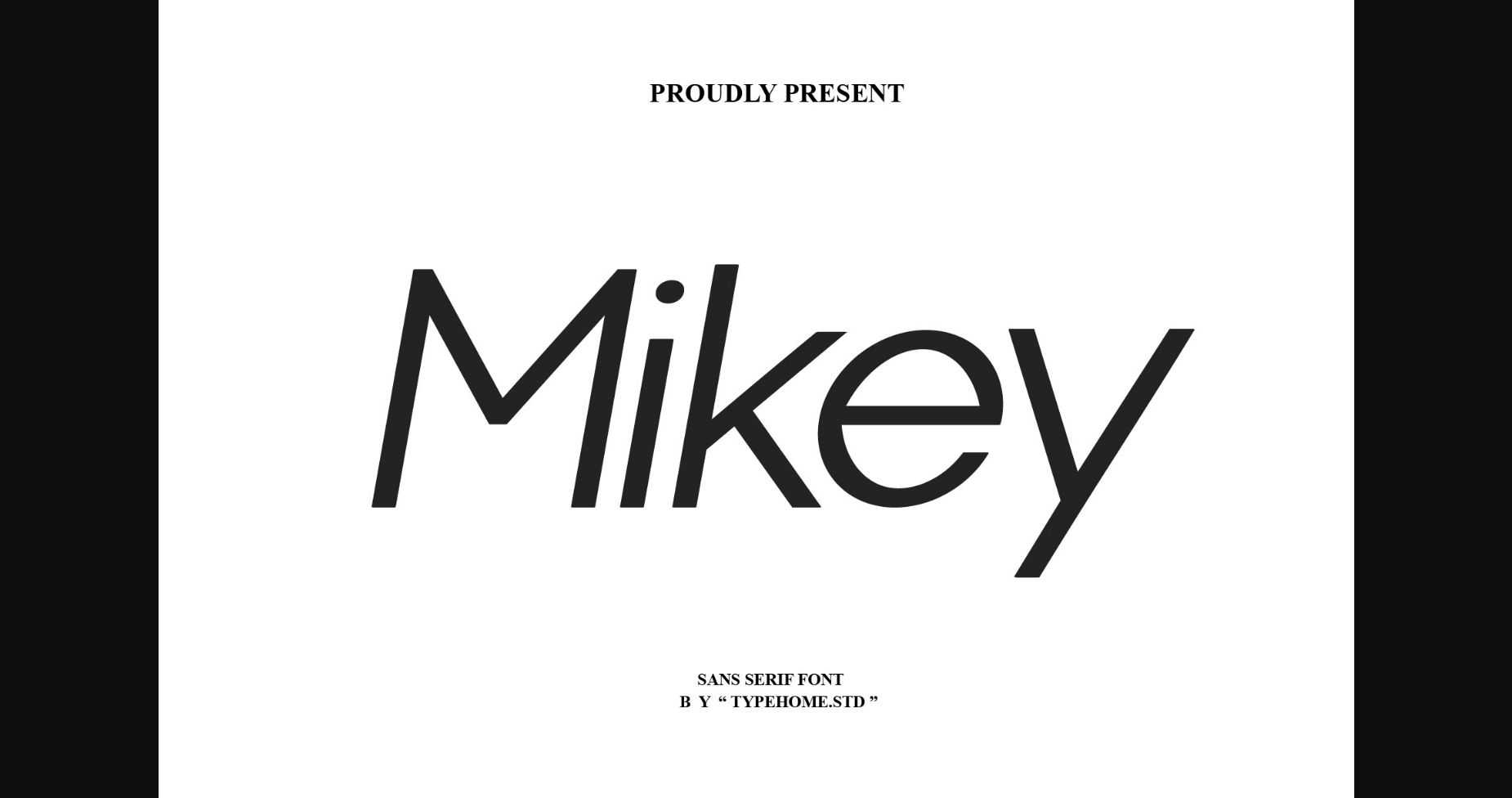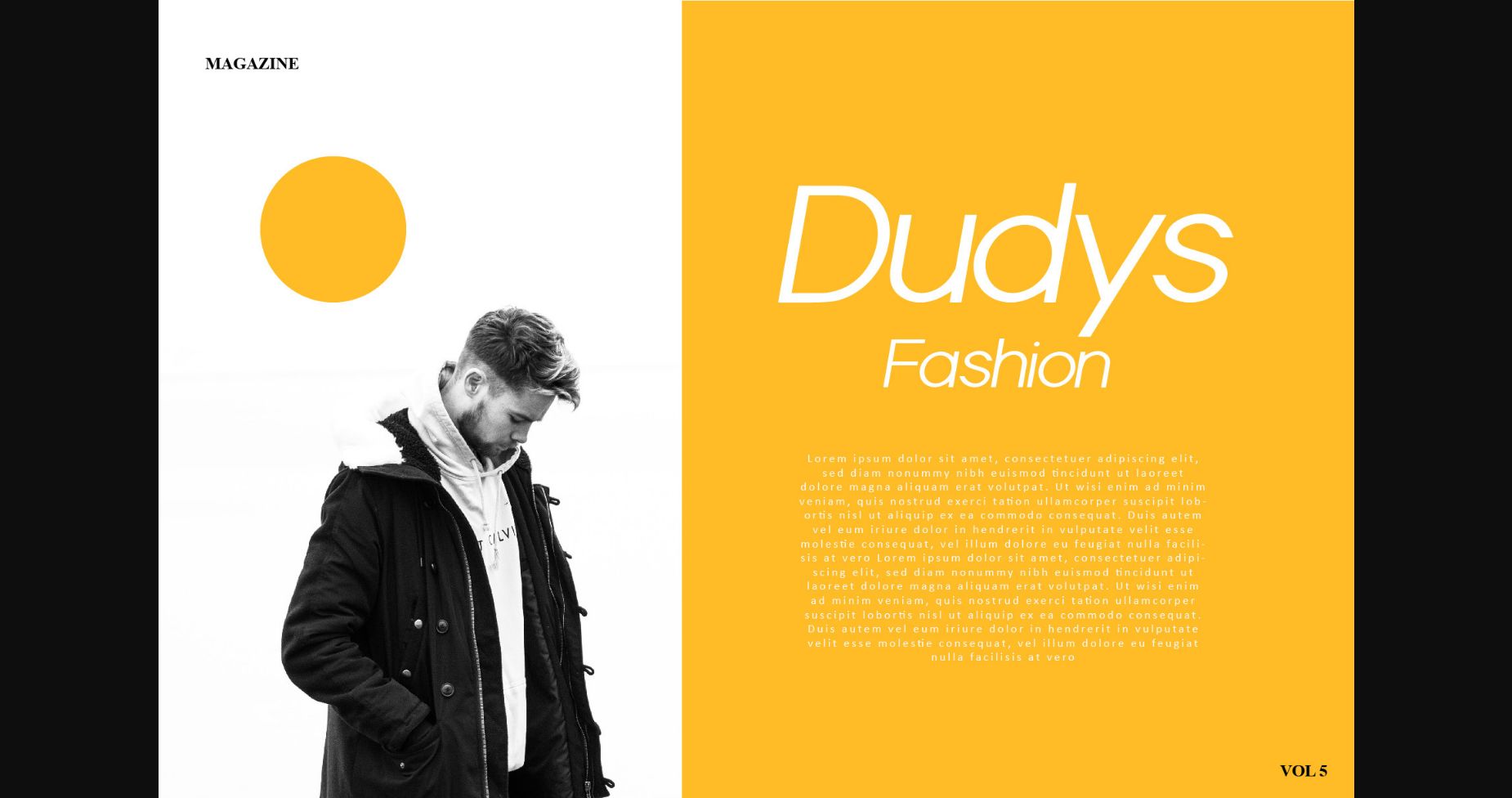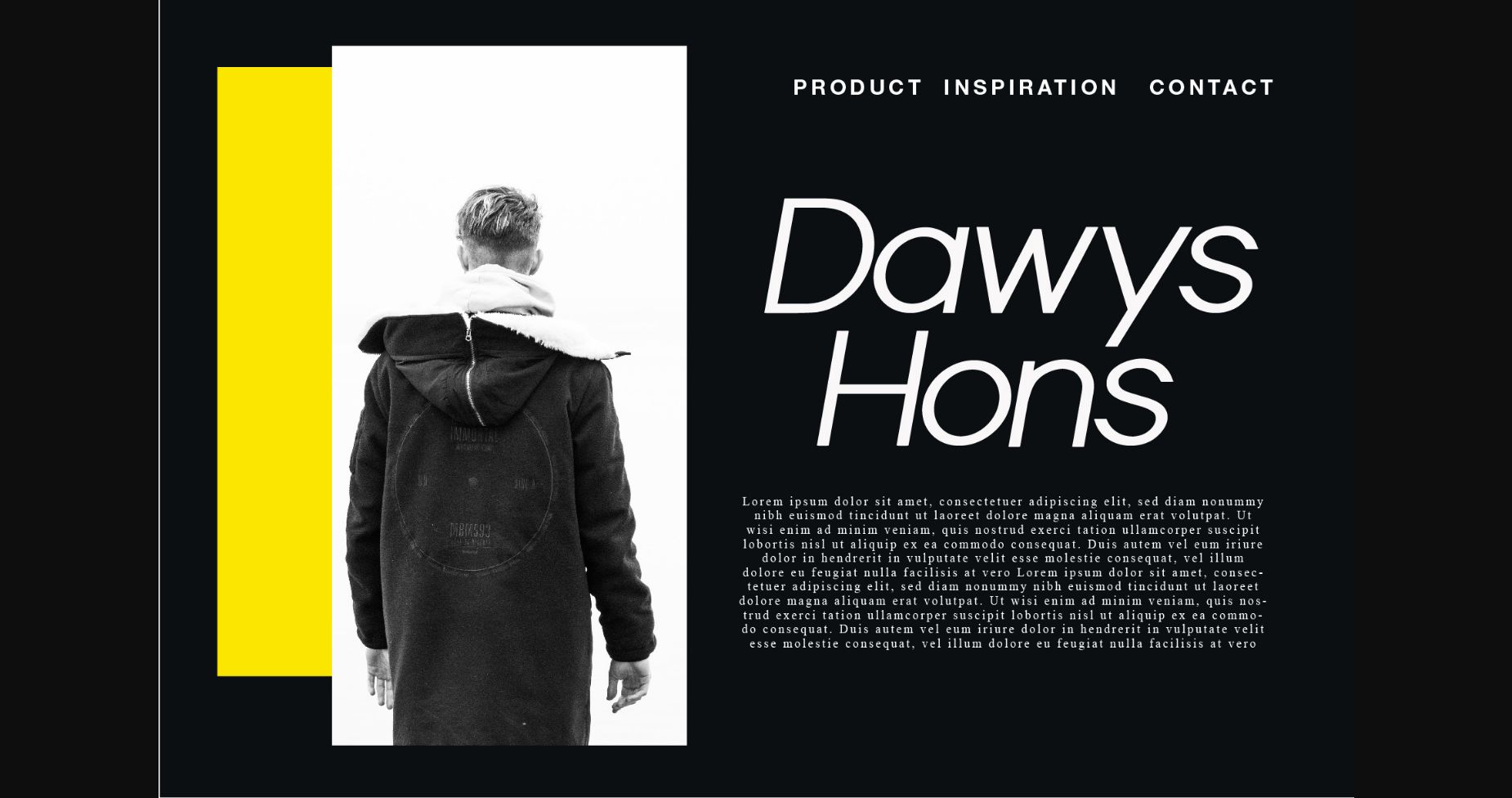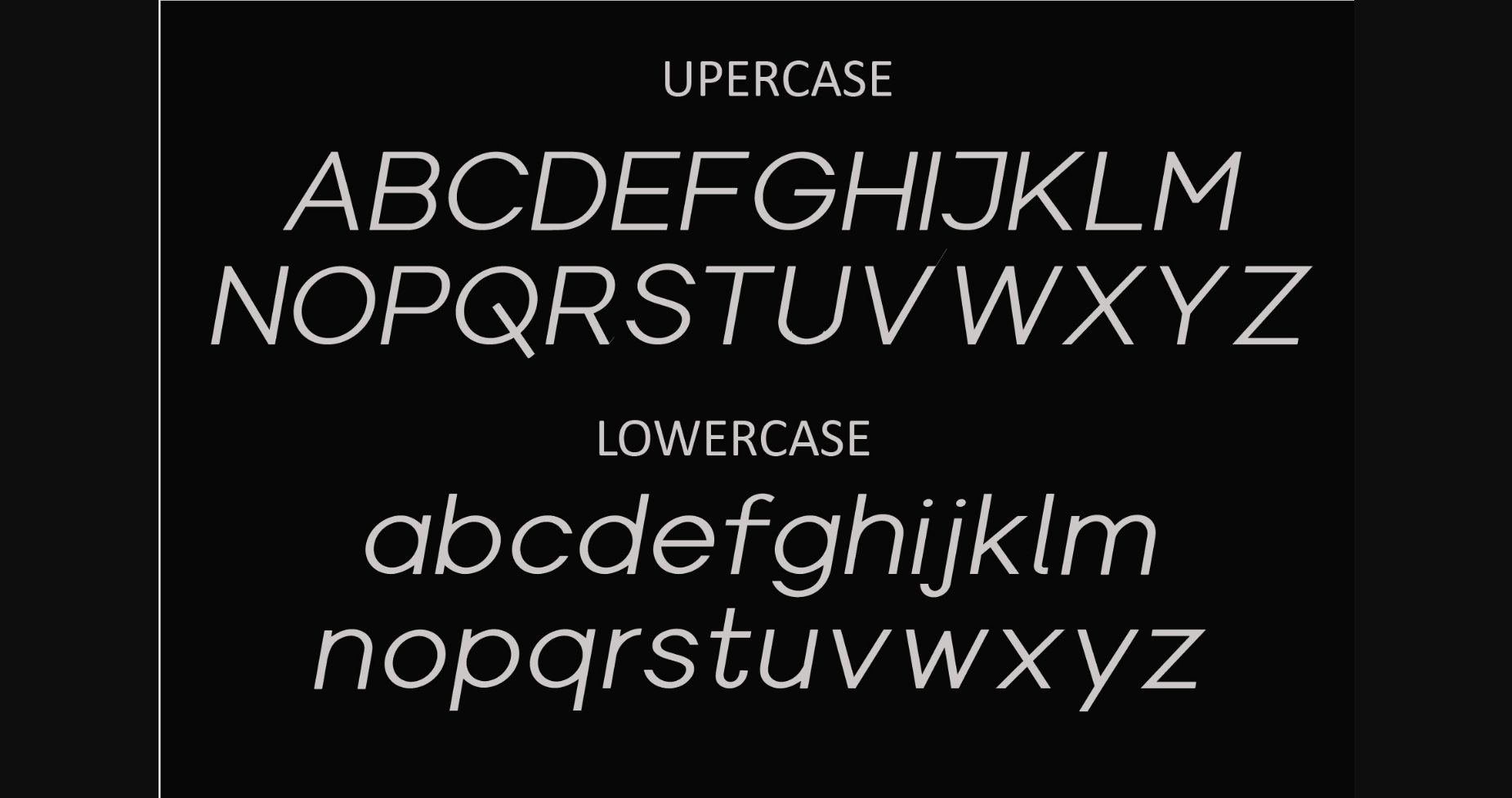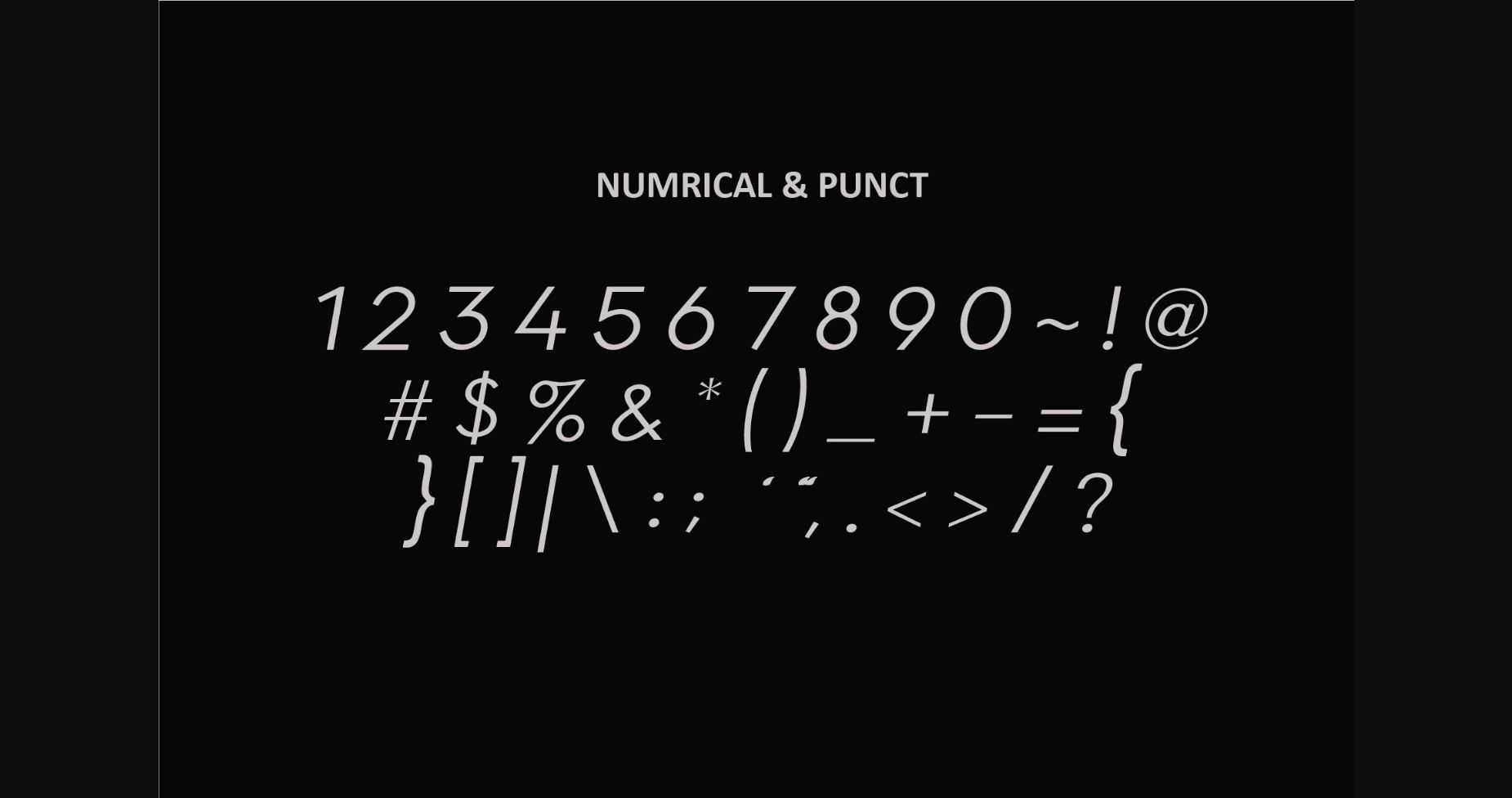
HomeSans Serif FontsMikey Font Sans Serif Fonts Mikey Font FacebookXPinterestWhatsApp 1 of 11 ... Mikey Font Poster 2... Mikey Font Poster 3... Mikey Font Poster 4... Mikey Font Poster 5... Mikey Font Poster 6... Mikey Font Poster 7... Mikey Font Poster 8... Mikey Font Poster 9... Mikey Font Poster 10... Mikey Font Poster 11... About Mikey Font Mikey is a minimal and clean sans serif font. It can easily be matched to an incredibly large set of projects, so add it to your creative ideas and notice how it makes them stand out! DOWNLOAD NOW People also explored Acapela Font Mountain Autumn Font Roses Monogram Font Helena Font Crushland Font Xecrian Font Transportation Icons Dingbats Font Highest Script Font Rhizo 297 0 TagsMikeyMikey Font Previous articleGlorius FontNext articleMon De Tresor Font LEAVE A REPLY Cancel reply Comment: Please enter your comment! Name:* Please enter your name here Email:* You have entered an incorrect email address! Please enter your email address here Website: Save my name, email, and website in this browser for the next time I comment. Personal Use Free 1313 Mockingbird Lane Personal Use Free Read more about this font Recharge Bold Personal Use Free Read more about this font Klotee Personal Use Free Read more about this font Sweet Cake Personal Use Free Read more about this font BLOG Using Fonts in Digital Marketing: Tips to Strengthen Your Brand Identity In the realm of digital marketing, every visual element plays a crucial role in shaping a brand's identity, and fonts are no exception. The... To increase your work productivity, choose the most readable fonts. Best Fonts for T-Shirt Design – Top 2025 Picks Elegant Wedding Invitation Fonts – Handwritten & Script Fonts